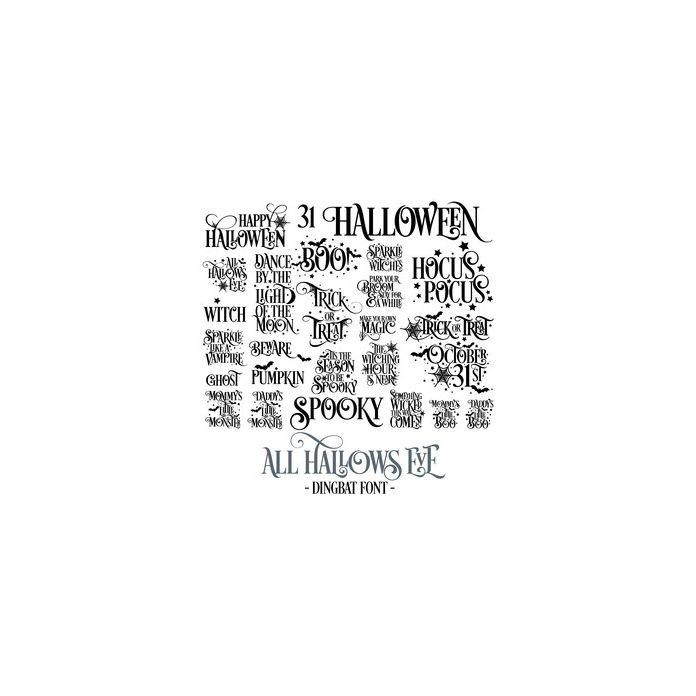
All Hallows Eve fancy Halloween Quote and sentiment Dingbat Font. Includes 26 fancy decorative Halloween quotes. All are assigned to an upper case letter starting with 'A' or can be accessed via glyphs. For more design ideas, coordinating designs & products and inspiration, please visit my blog http://www.sarahhurleyblog.com